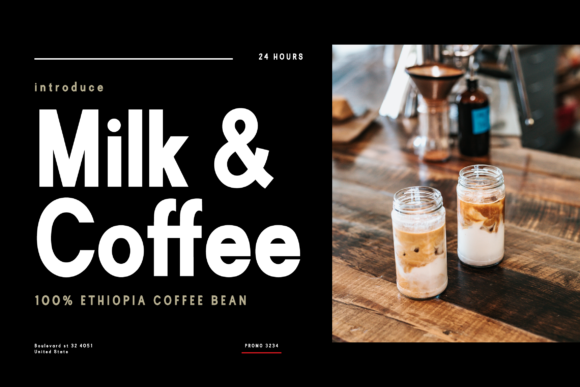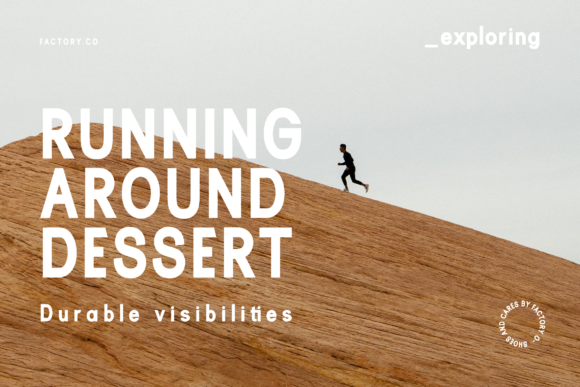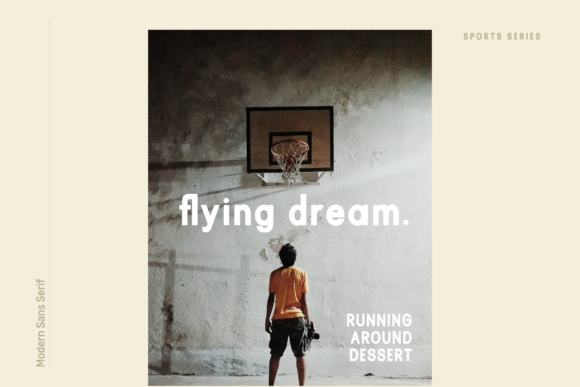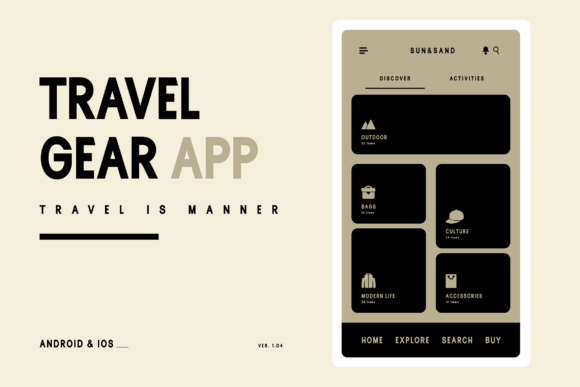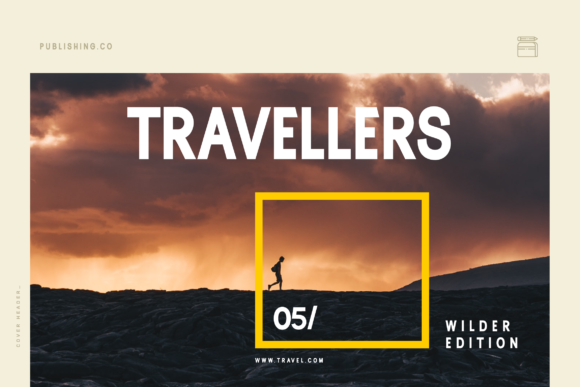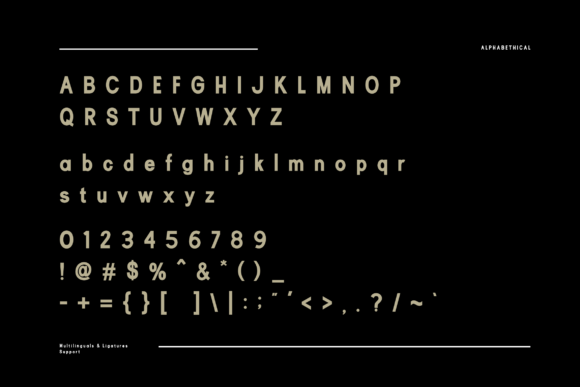
Introduction to Rubric Font
Rubric is a bold and simple sans serif font.
Key Features of Rubric Font
Why Choose Rubric Font?
Rubric Font offers exceptional quality and versatility, making it a valuable addition to your design toolkit. Whether you’re creating for personal projects or commercial use, Rubric Font delivers professional results.